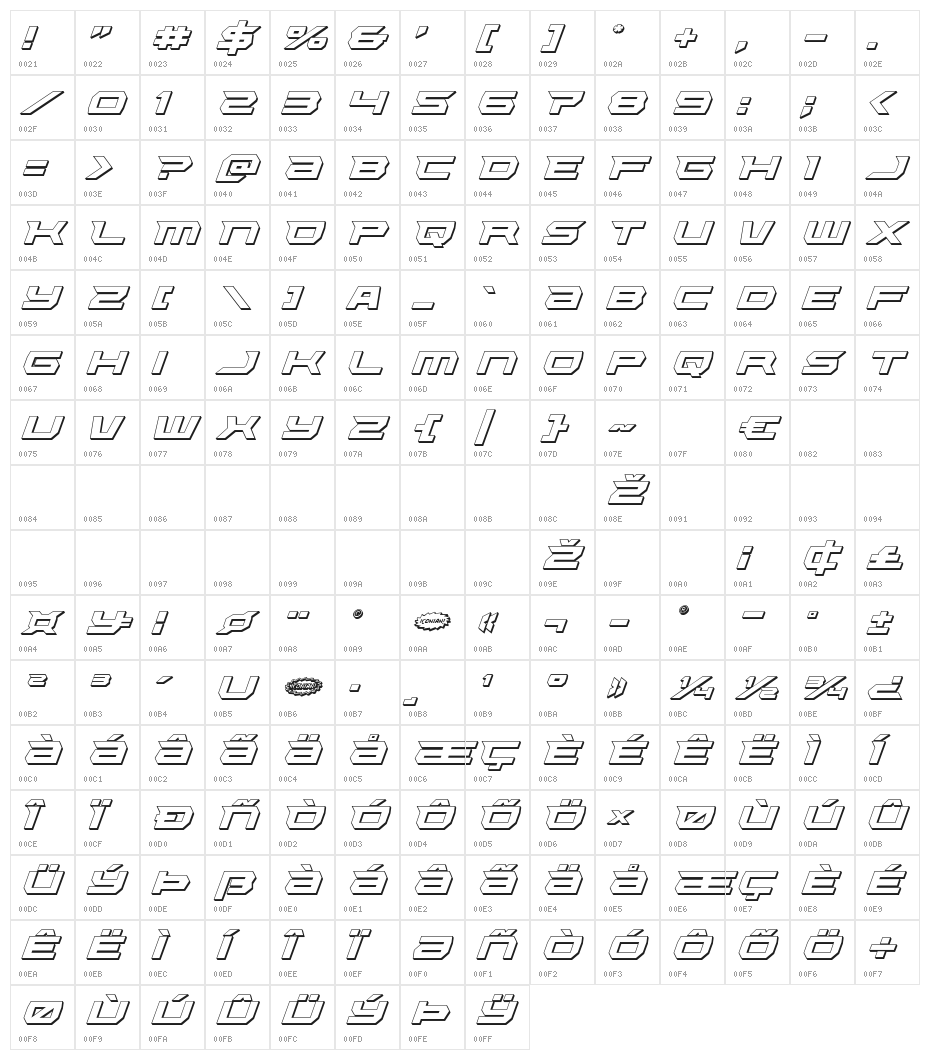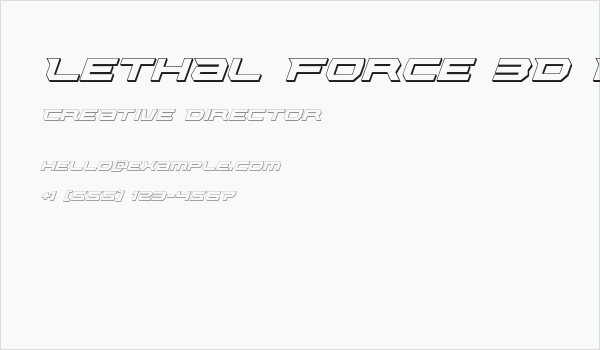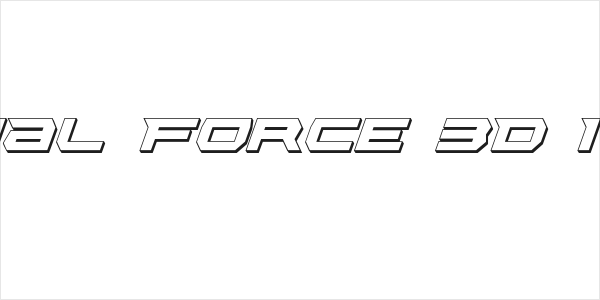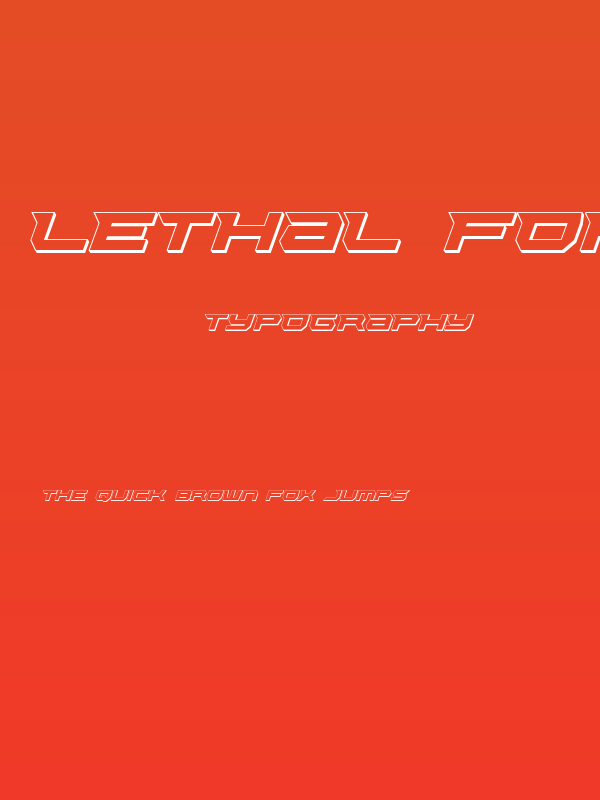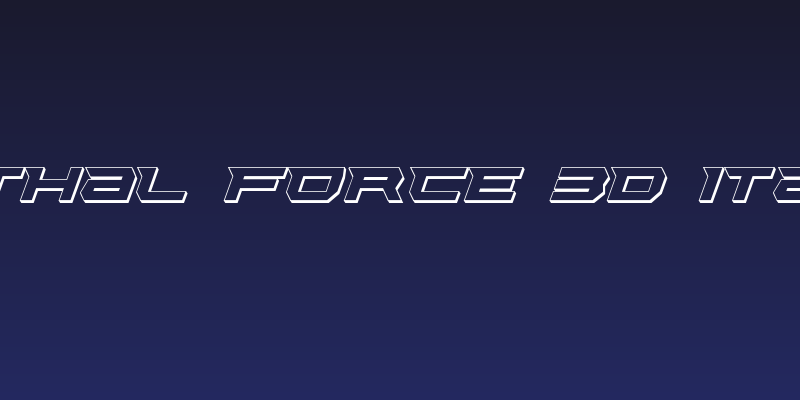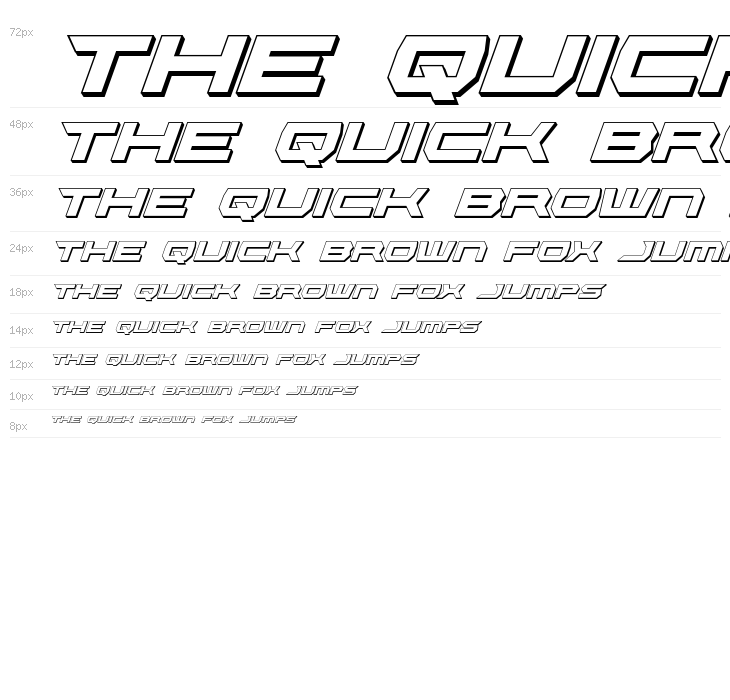
Lethal Force 3D Italic Font
Lethal Force 3D Italic Description
This font features a bold, futuristic design with a 3D effect that gives each character a sense of depth and dimension. The italicized style adds a dynamic and forward-moving appearance, making it ideal for projects that require a modern and edgy look. The characters are outlined, which enhances the 3D illusion and provides a striking visual impact. The font maintains a consistent width and weight across all characters, ensuring uniformity and balance. Its geometric shapes and sharp angles contribute to a sleek and contemporary aesthetic.
| Proposed Projects | Ideal for video game titles, sci-fi movie posters, tech branding, and futuristic event flyers. |